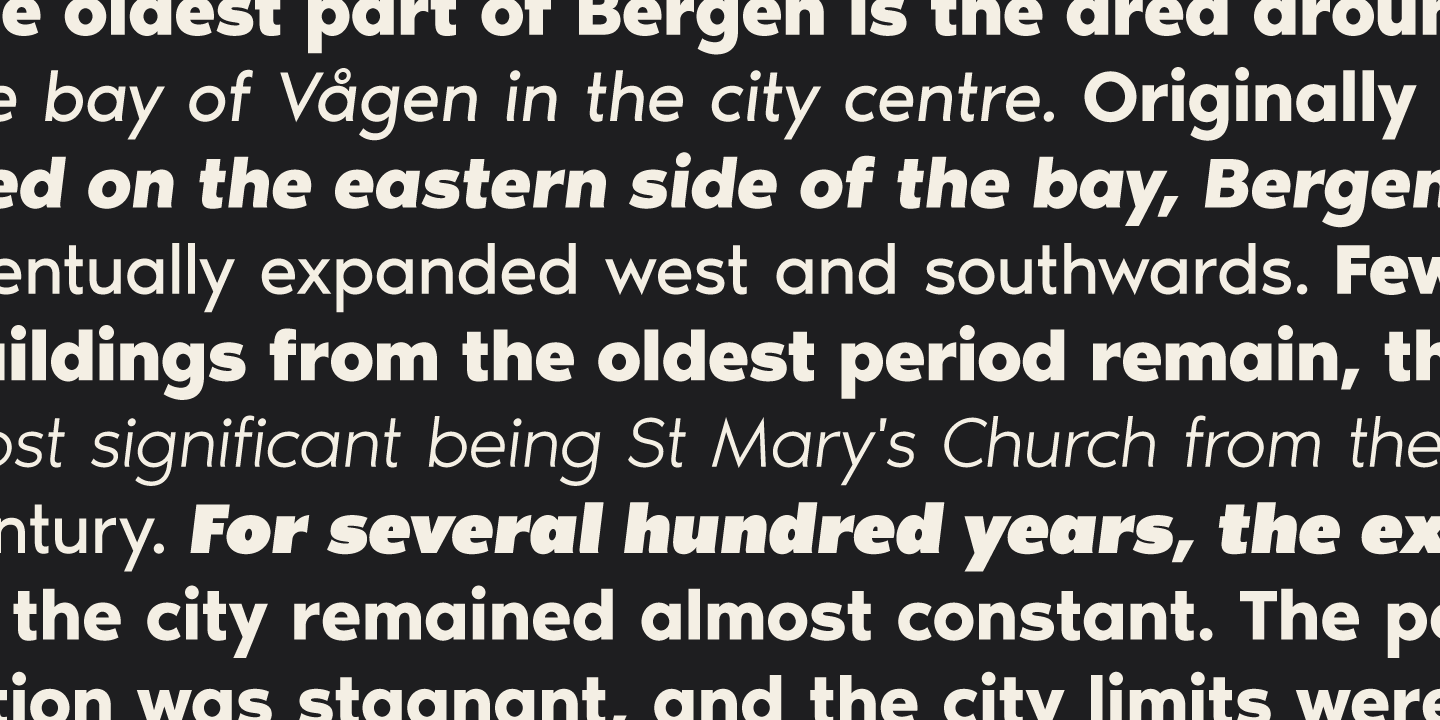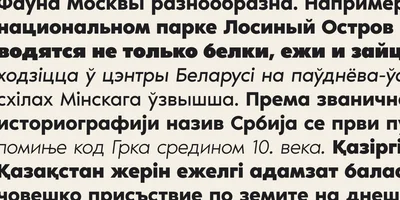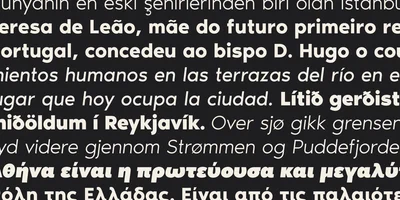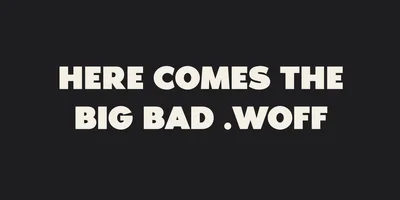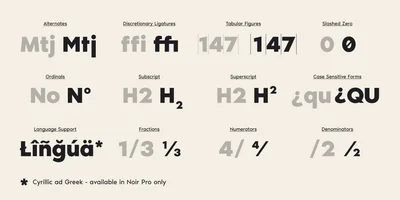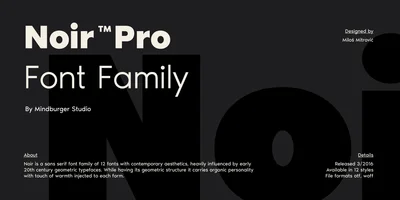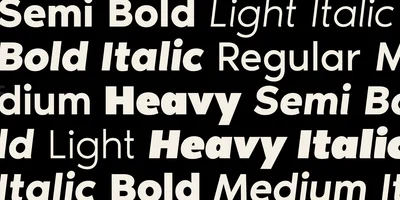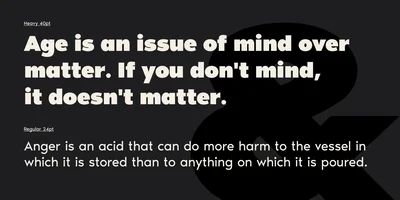
Noir Pro vs Obviously
Noir Pro and Obviously are both sans-serif typefaces sharing a display foundation. Where Noir Pro leans art deco, elegant, Obviously brings wide, modern. Compare which suits your Display project.
Recommended: Noir Pro
- art deco, elegant design character
- Suited for Luxury and Fashion
- From Bureau Rop
Consider: Obviously
- wide, modern design character
- Suited for Headlines and Creative
- From OH no Type Co